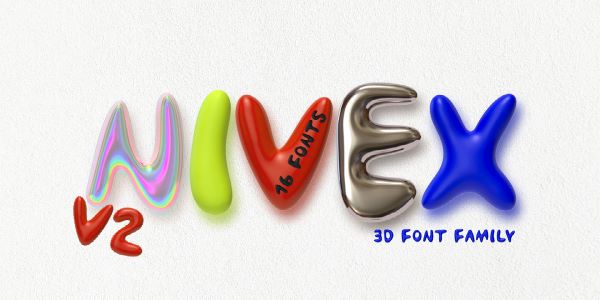
Nivex V2 3D SVG Font
Nivex V2 by Lux Font is a striking 3D OTF SVG color bubble font that pushes the boundaries of what a typeface can look like — its letterforms rendered in photo-realistic materials including matte, metallic, and transparent glass finishes, producing an effect more akin to a 3D render than a traditional typeface. A free demo version is available for personal use before purchasing the full family.
Nivex V2 is a visually spectacular and technically innovative addition to our free font collection — created by Ukraine-based Lux Font, a studio specialising in premium color and 3D type experiences. Note that the full version requires compatible apps such as Adobe Photoshop CC 2017+ or Illustrator CC 2018+. Browse our full library of free fonts and discover more distinctive typefaces crafted by independent designers around the world.